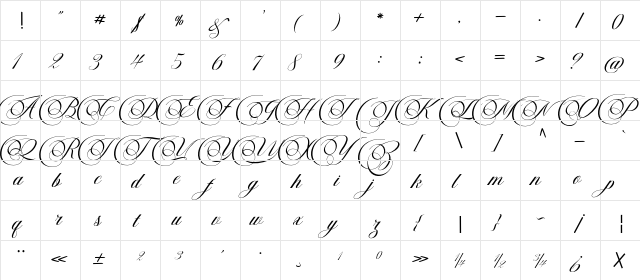
Faradila Regular
Design Context for Faradila Typeface
Faradila is a composed and adaptable typeface that performs quietly and consistently across a wide range of design contexts.